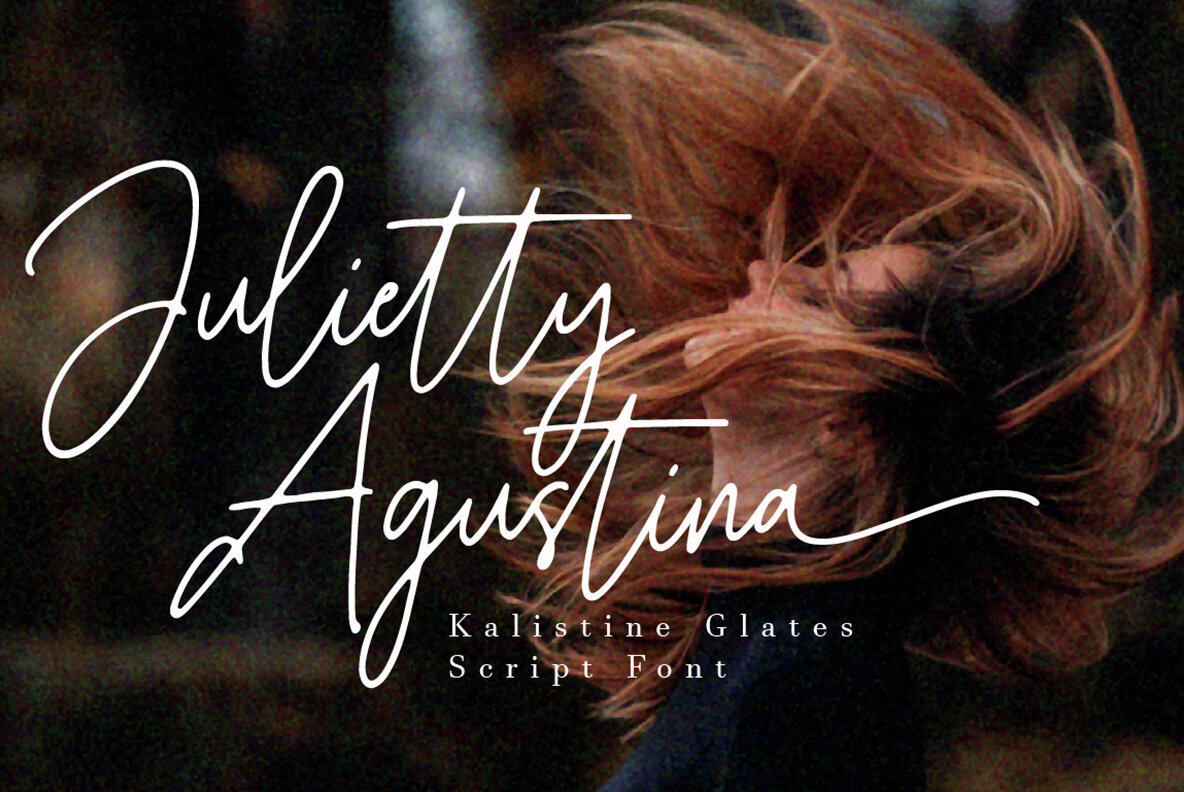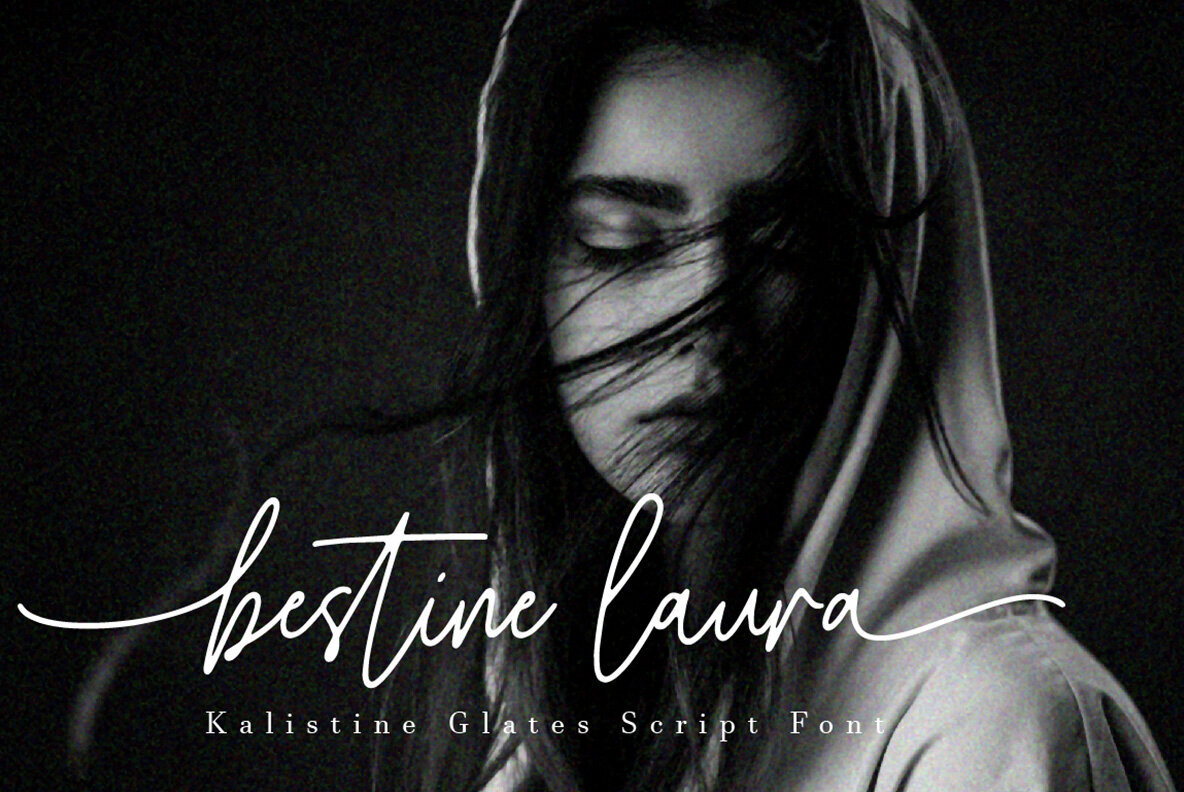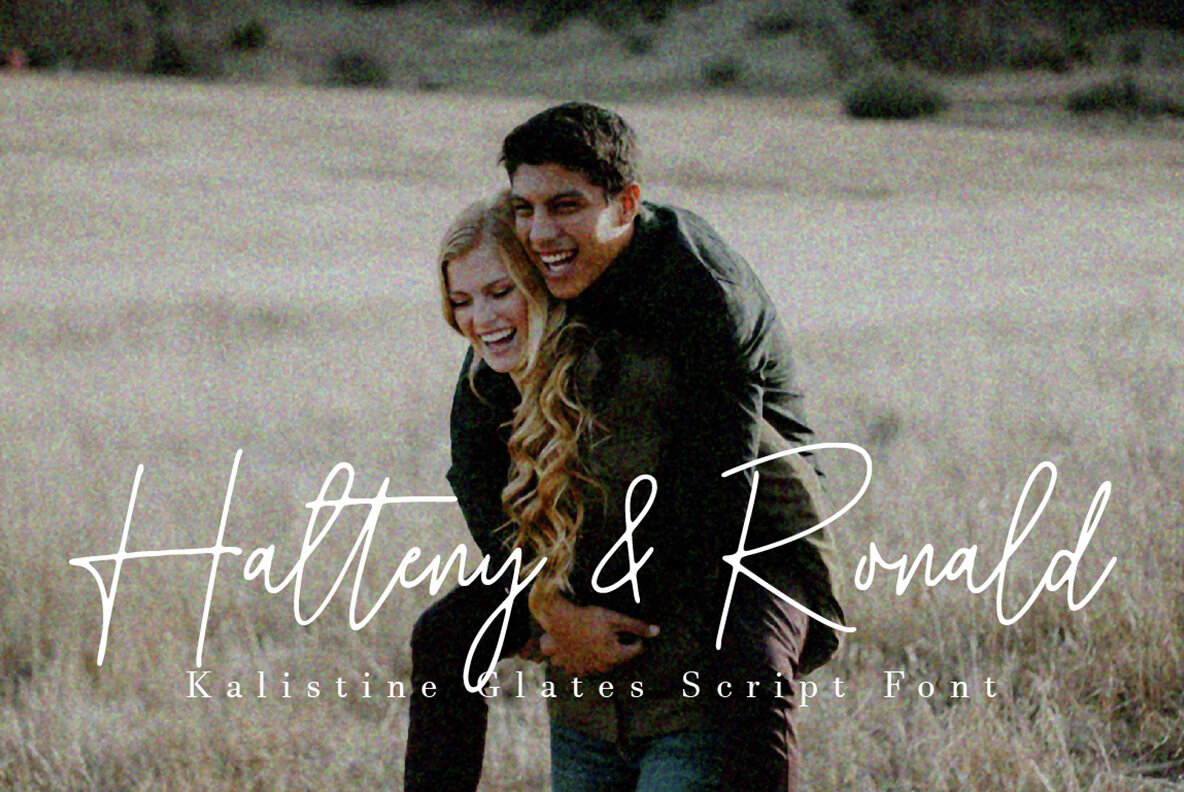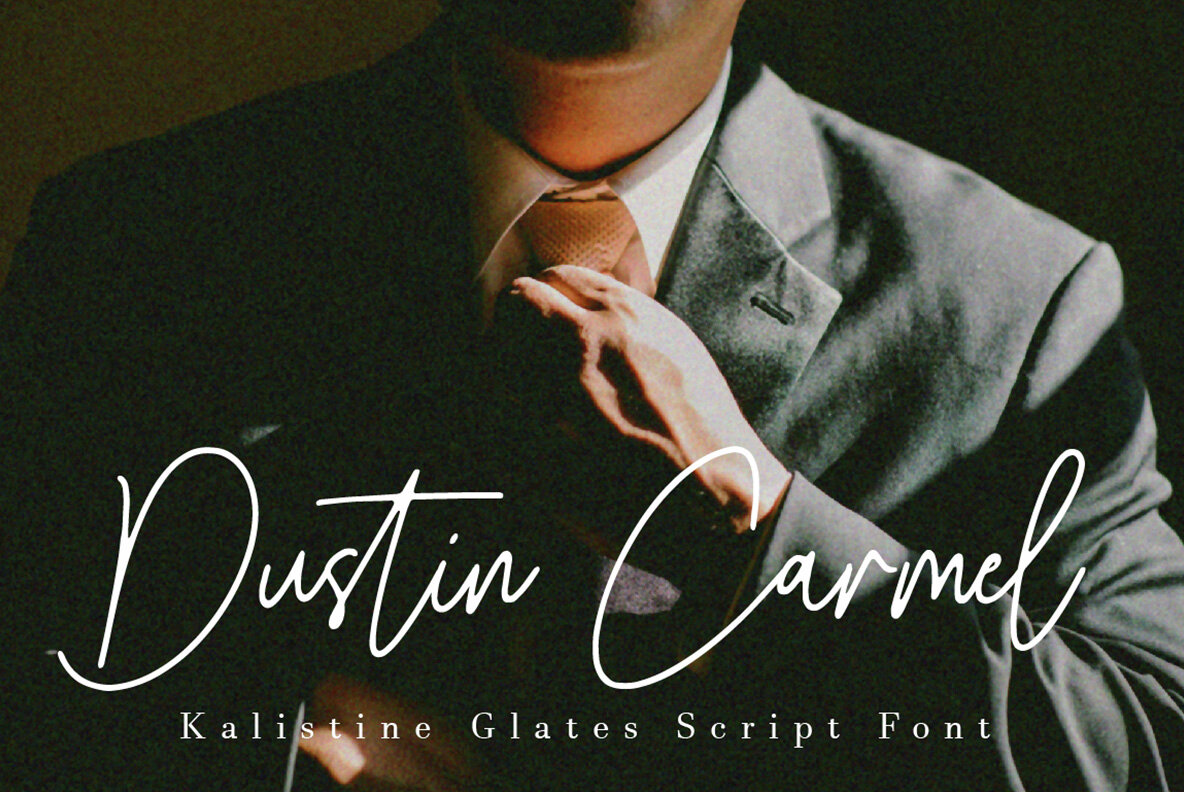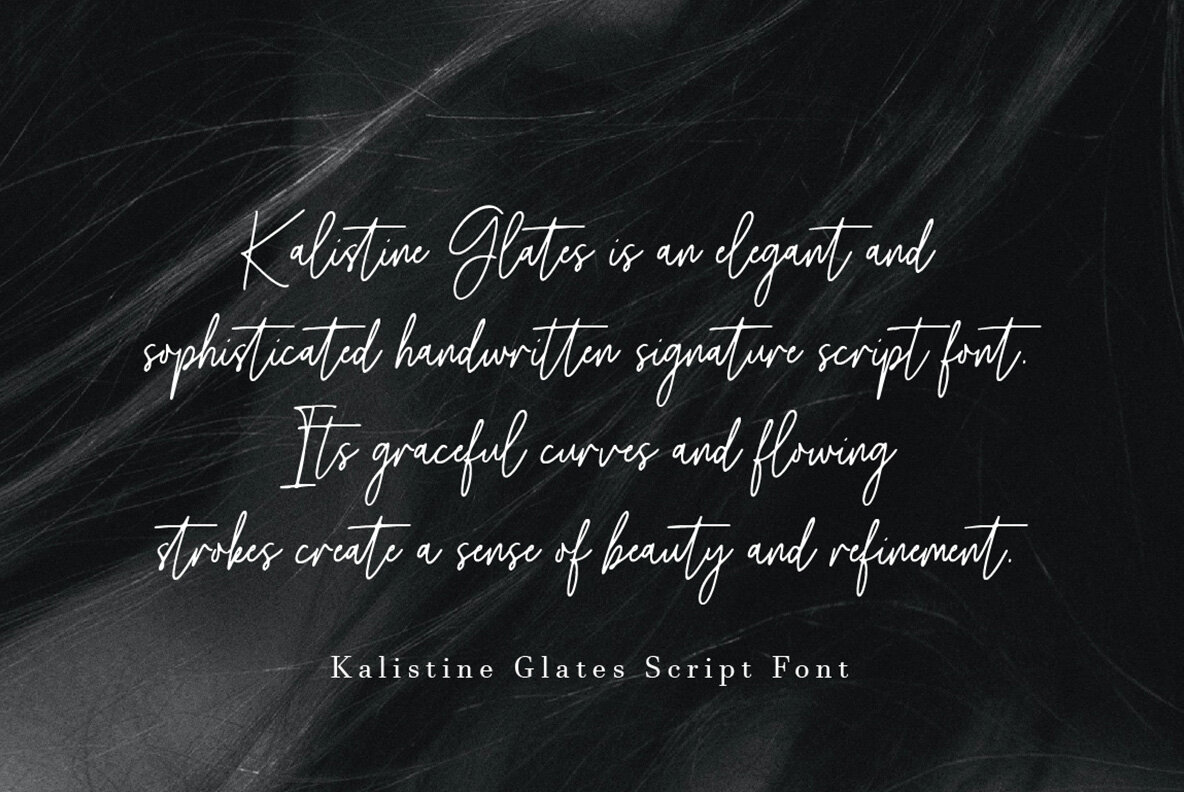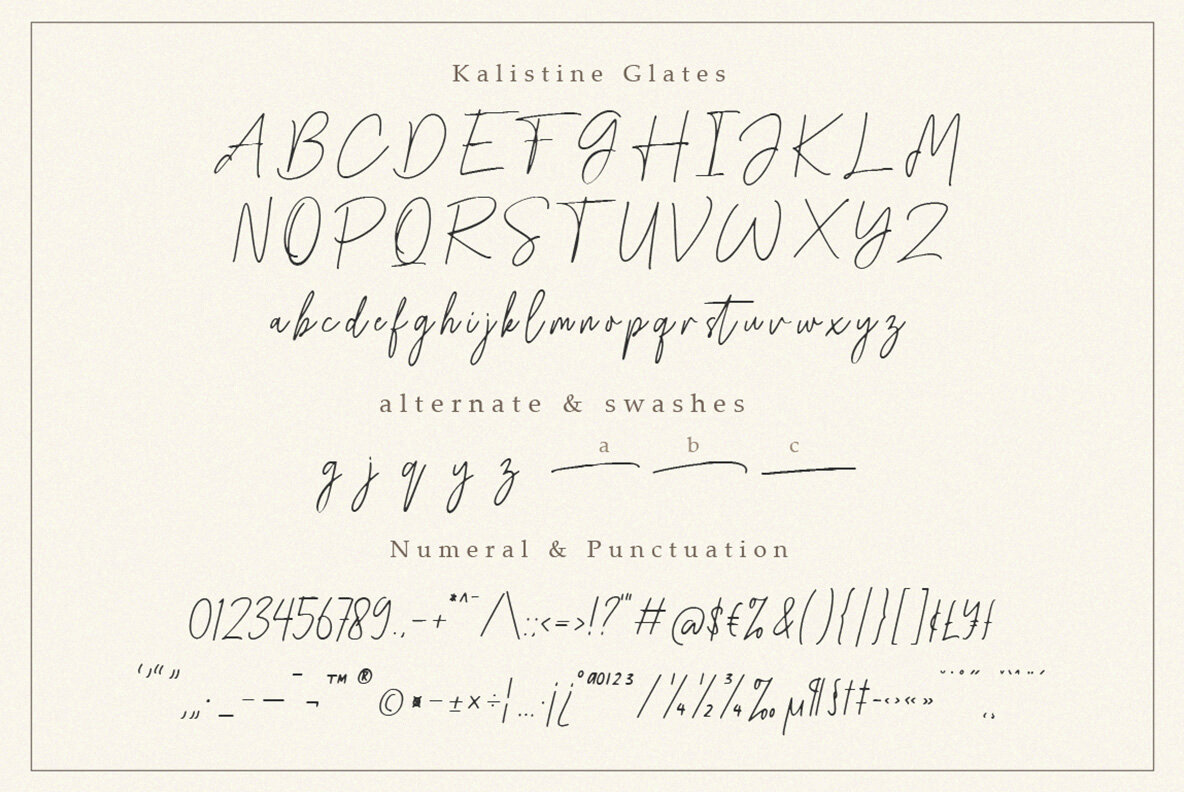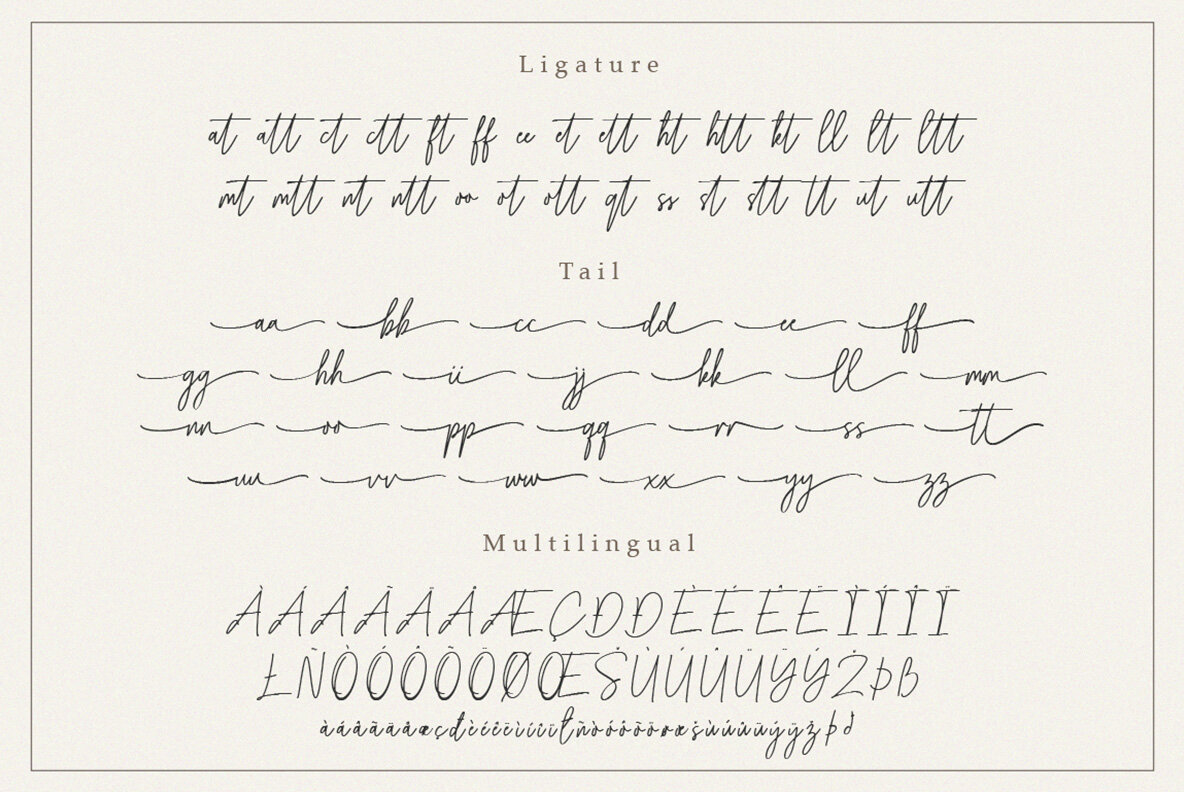
Kalistine Glates Font
Kalistine Gates is an exquisite and refined handwritten signature script font that exudes elegance. It features beautifully designed beginning and ending swashes, adding a touch of sophistication to any written text. To use beginning and ending swashes (tail), you don't need to use software that supports opentype, because we have made it separately so it's very easy to use.